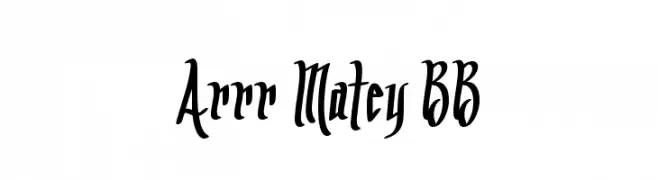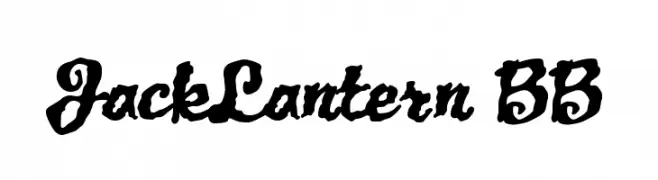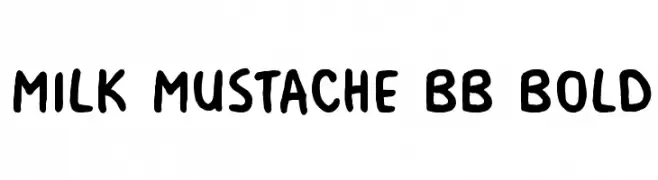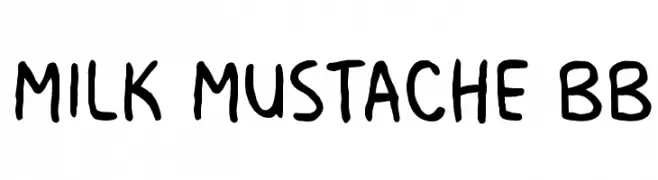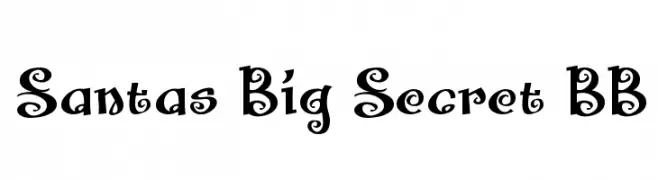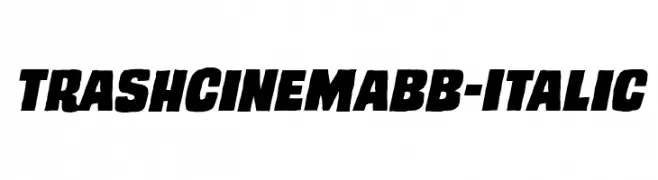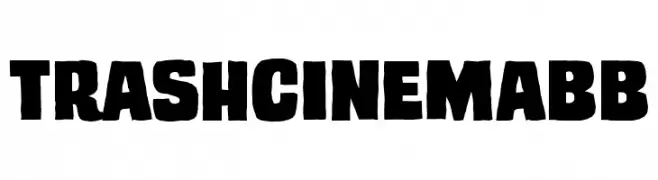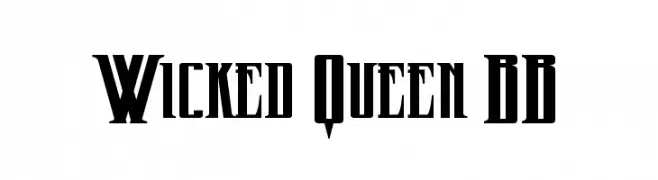
A bold, gothic-inspired font with sharp, angular lines and exaggerated serifs.
A bold, adventurous font with pirate-themed aesthetics and dynamic curves.
A bold, distressed font with a vintage cinema vibe.
Bold, italic font with a vintage, dynamic style.
A spooky, playful font with jagged edges and a Halloween theme.
A whimsical, decorative font with playful curls and swirls.
A playful, handwritten font with a casual and friendly style.
A playful, bold handwritten font with rounded edges and a casual style.
A bold, geometric font with a futuristic and digital aesthetic.
A bold, futuristic font with geometric shapes and angular lines.